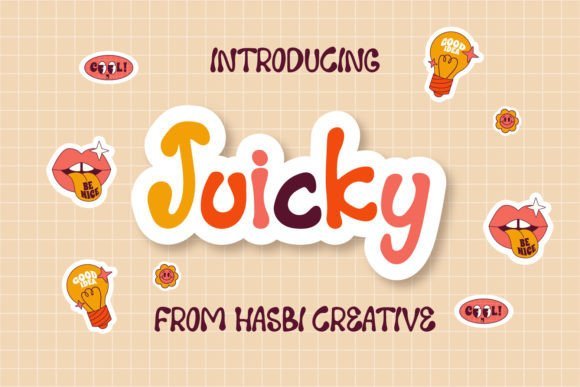
Unleashing Creativity with Juicky Font
Have you ever been brainstorming a new design project, and suddenly a spark of inspiration hits you? Maybe it’s the perfect combination of colors, the ideal typography, or a quirky illustration that makes everything come together. For designers, those ‘aha’ moments are what make the creative process so thrilling. And that’s exactly what Juicky Font is designed to evoke – a sense of fun, playfulness, and excitement.
Juicky Font is a super fun and playful hand-lettered typeface that’s perfect for a wide range of creative projects, from headings and flyers to product packaging and book covers. With its PUA encoding, you can easily access all of the glyphs and swashes, giving you endless possibilities for customization. Whether you’re a seasoned designer or just starting out, Juicky Font is a valuable addition to your toolkit, offering a unique and eye-catching way to bring your designs to life.
Juicy Font Key Features
• Unique Characteristics: Juicy Font features a unique blend of rounded and angular shapes, creating a friendly and approachable feel that is perfect for body text and headlines.
Designer Review: Juicky Font
Overall, I’d say Juicky Font is an interesting addition to the world of typography. There are some aspects that really shine ✨.
• Customizability: The font offers a wide range of options for customization, making it easy to adjust to your project’s specific needs.
• Unique feel: The font’s quirky, cursive style gives it a distinct personality that can add a touch of whimsy to your designs.
• Good legibility: Despite its playful nature, Juicky Font remains legible at most font sizes, making it suitable for a variety of applications.
However, there are a few limitations that prevent it from being a top choice ⚠️.
• Limited compatibility: I encountered some issues with Juicky Font not playing nicely with certain font combinations or formatting options.
• Some inconsistencies: The font’s irregularities can sometimes make it difficult to read, especially in smaller font sizes.
• Lack of professional polish: While the font’s unique style is an asset, it doesn’t quite feel like a polished, professional choice.
Overall, I think Juicky Font is a solid choice for projects that require a playful, attention-grabbing look. However, it may not be the best fit for more formal or professional applications.
Juicky Font is commonly used for creating eye-catching headlines, titles, and text overlays for social media graphics, presentations, and marketing materials.
Getting the Most Out of Juicky Font
To get the most out of Juicky Font, use it in combination with bold colors and contrasting backgrounds to make your text stand out. Experiment with different font sizes and styles to create visual interest and emphasis.